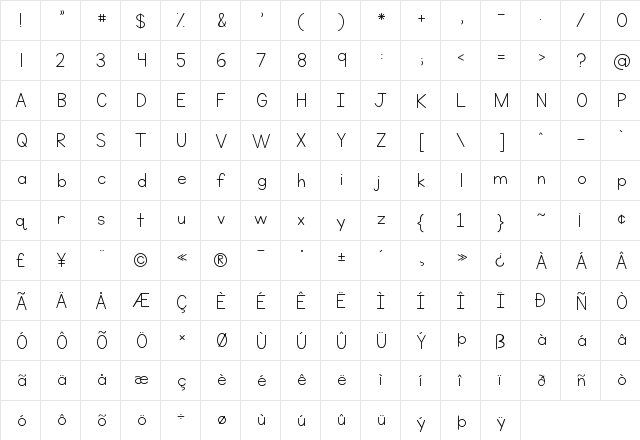
KG Neatly Printed Spaced Regular
| Foundry | Kimberly Geswein |
| Designer | Kimberly Geswein |
Design Context for KG Neatly Printed Spaced Typeface
KG Neatly Printed Spaced takes a measured approach to typography — its balanced proportions and neutral character make it a reliable workhorse for both digital and print work.